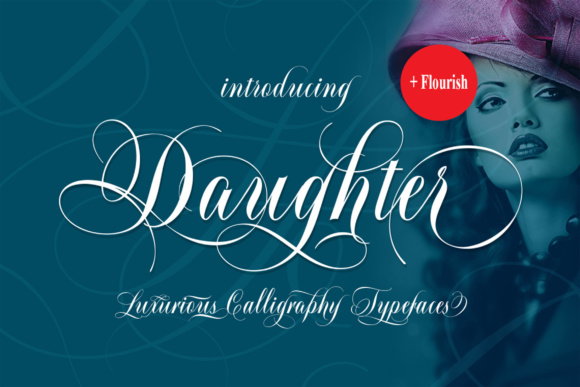
Get ready to add a touch of timeless elegance and creativity to your designs with the Daughter Script Font! This exquisitely crafted script font was designed with a focus on sophistication and versatility, making it an ideal choice for a wide range of projects.
Imagine your designs blooming with a new level of charm - soft curves, delicate strokes, and an unmistakable touch of femininity. Whether you're creating heartfelt invitations, tasteful logos, or breathtaking quotes, Daughter Script Font will bring a touch of luxury to your creations.